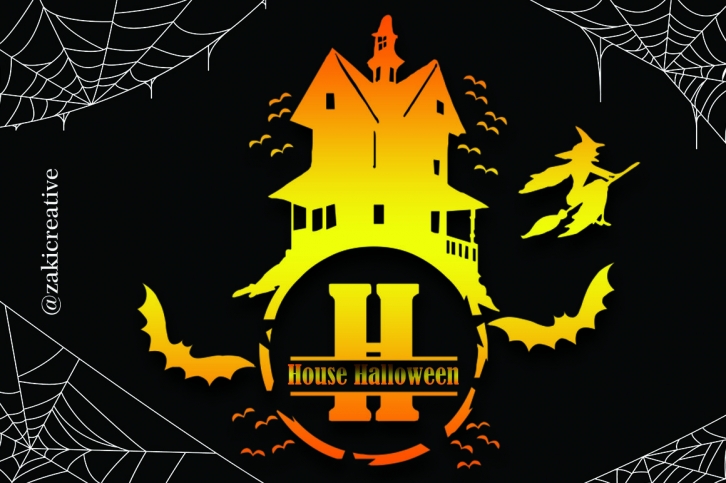
House Halloween Monogram is a beautiful font that was designed by Zacky Studio. It's a great choice for designers and creatives who need such a font. It was released on August 27, 2021 and the file size is 3.71 MB. House Halloween Monogram may give a more youthful, expressive and casual look to your project. It is a very beautiful, refined, elegant, and high-quality font.